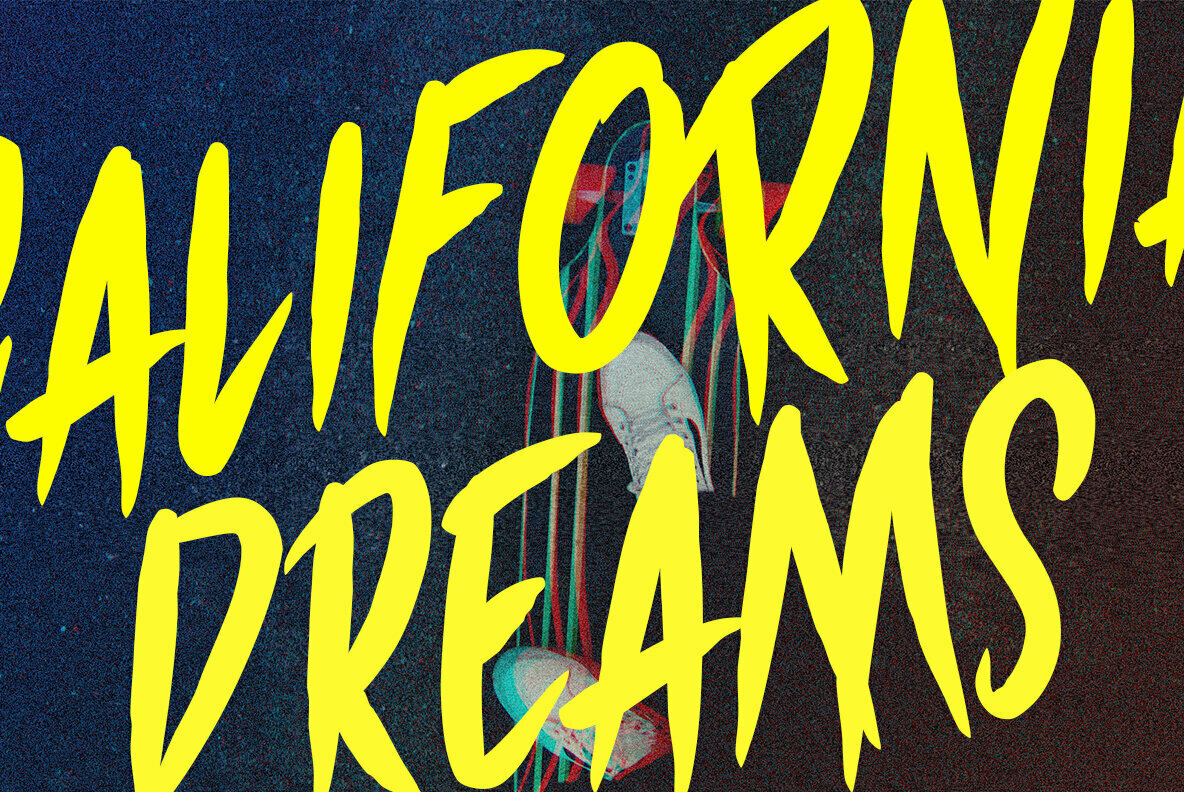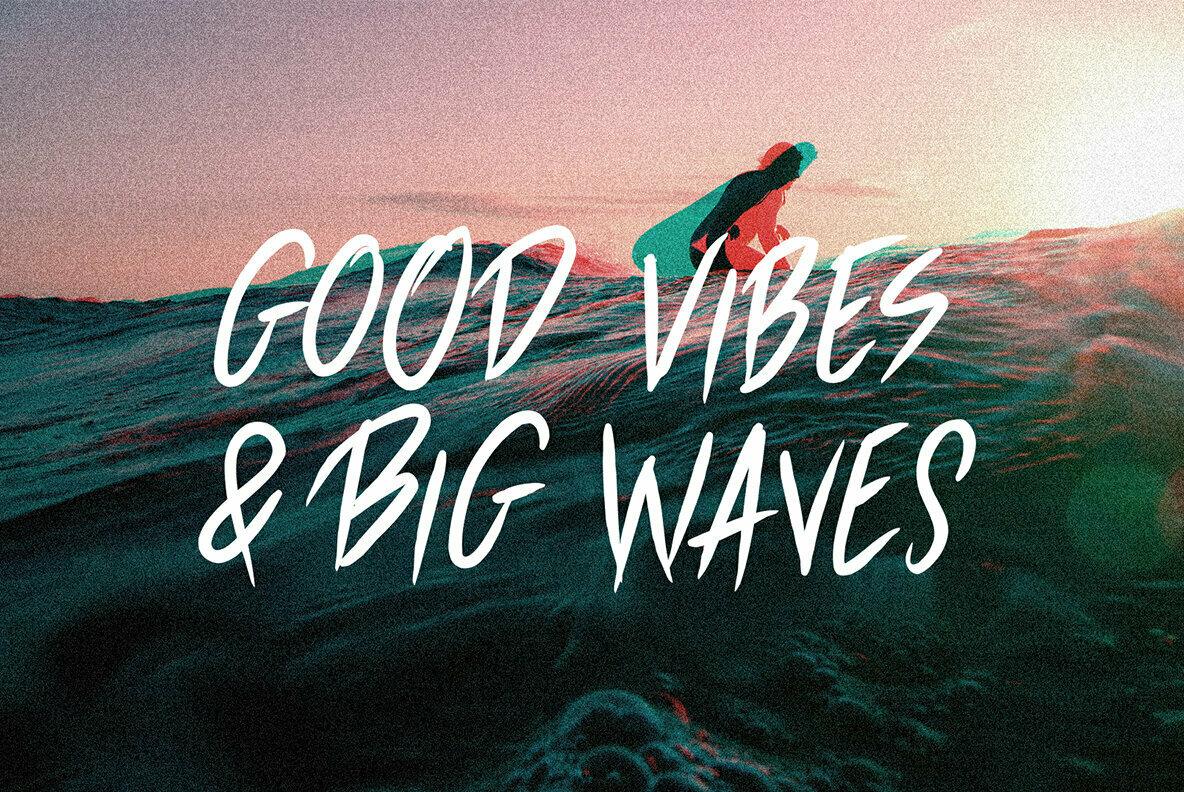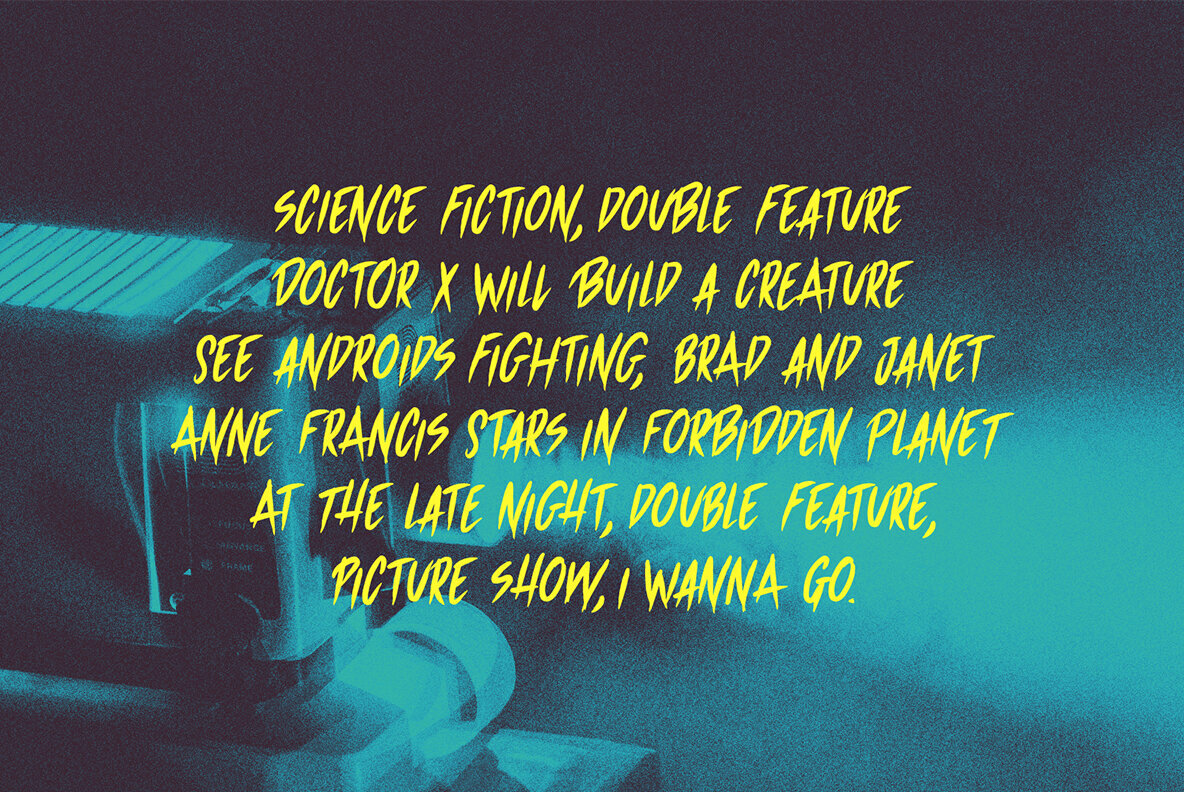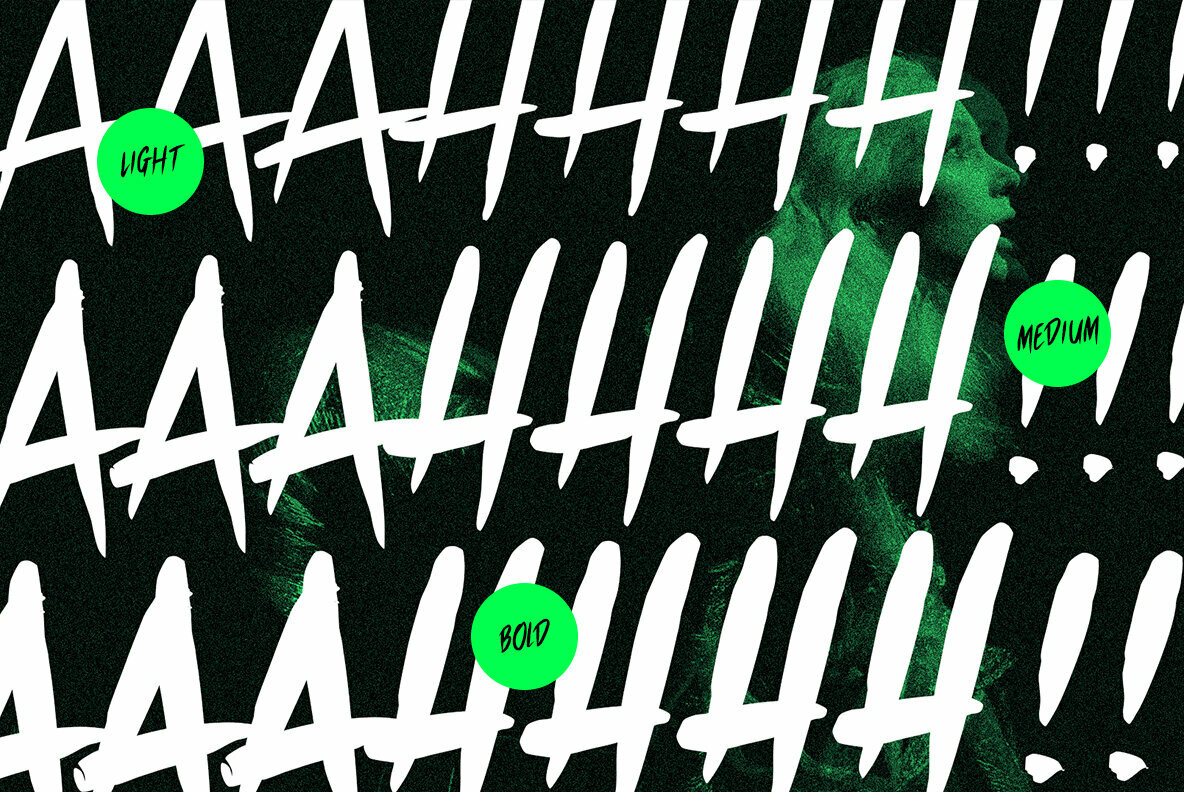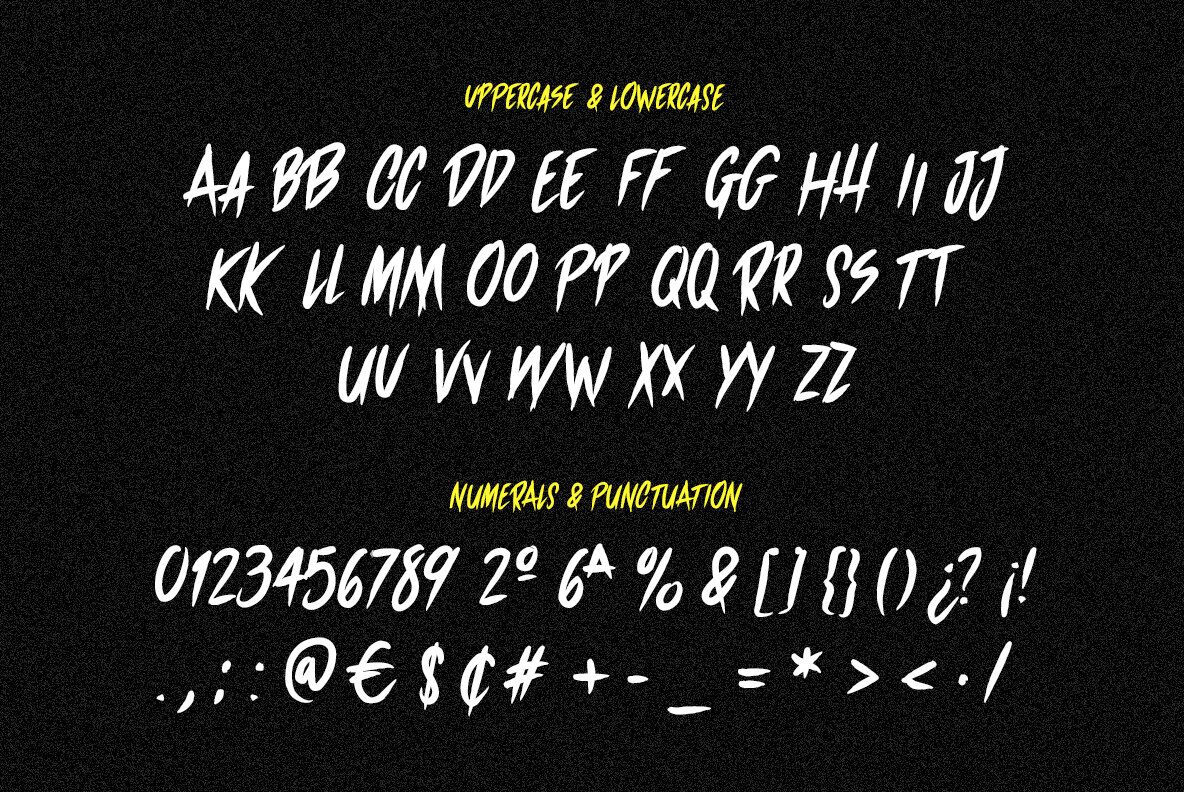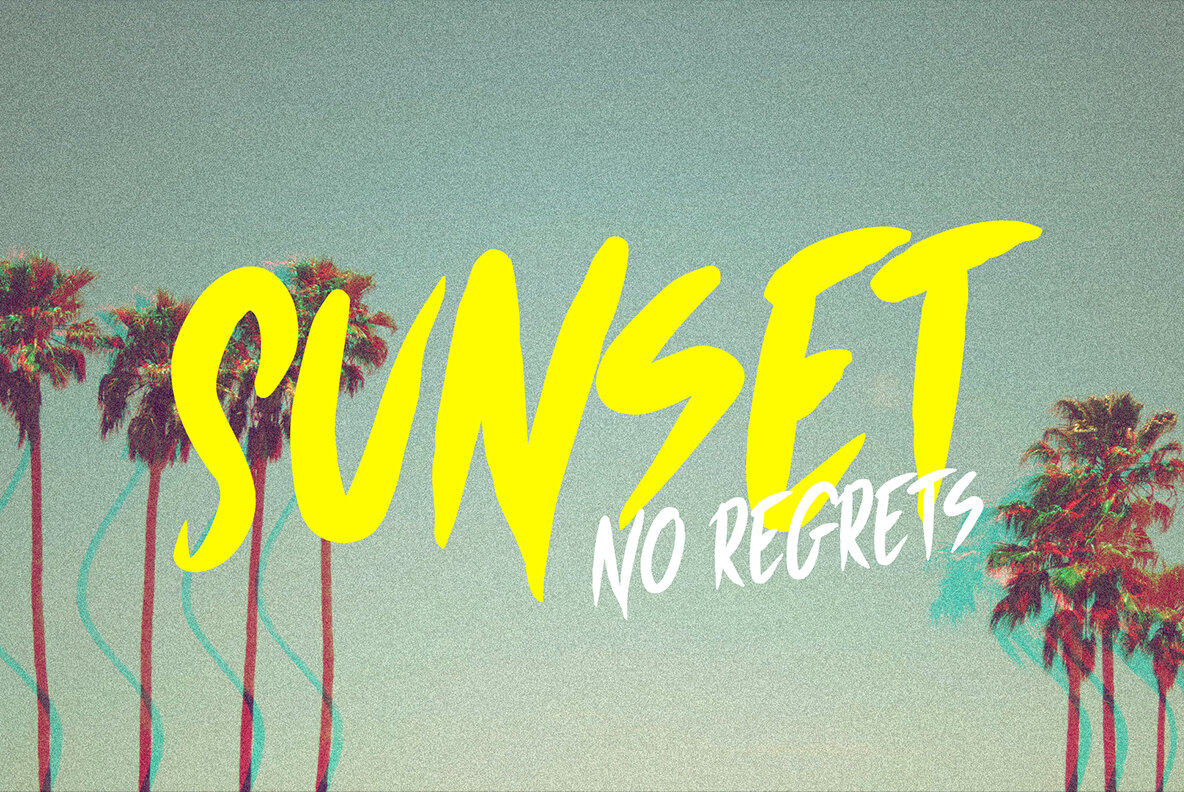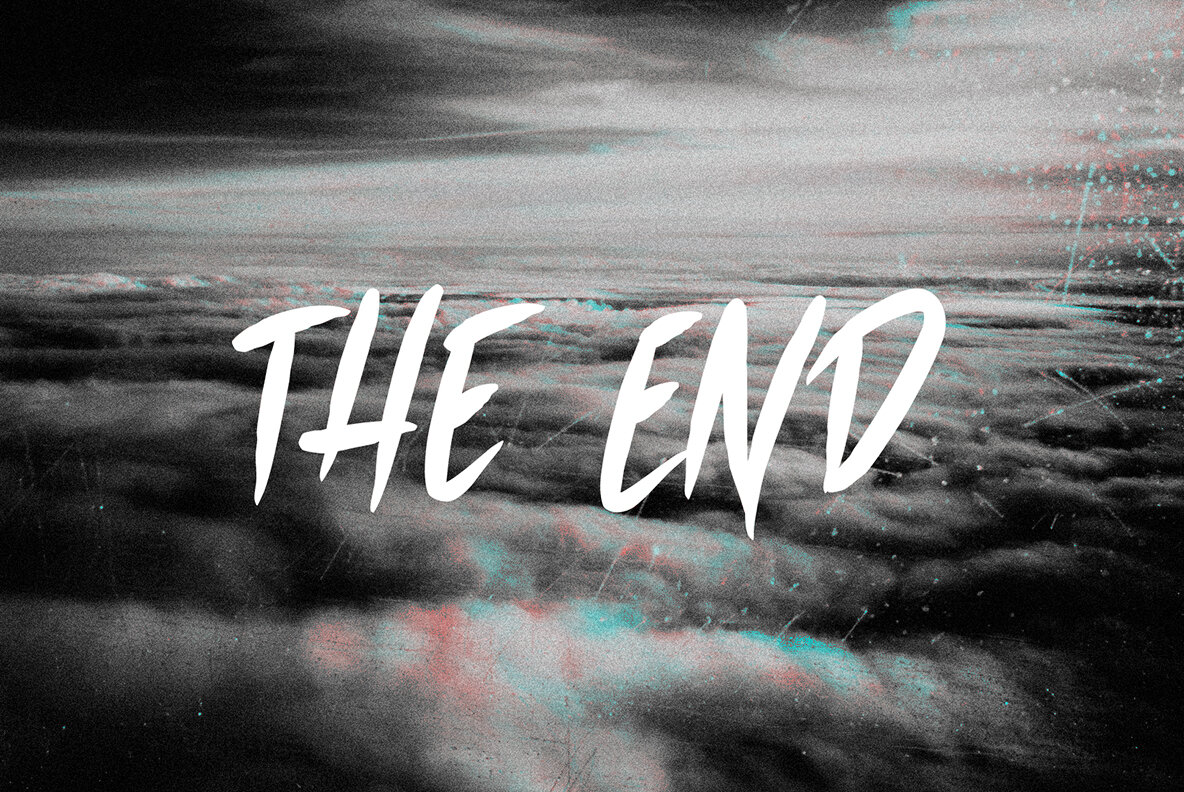
Serie B 1
Serie B, a handwritten font inspired in the B-movies, perfect for the hand drawn retro fonts lovers with a sci-fi and terror movie feel, but also with skate and surf vibes. You can use it for every project, personal or commercial. It looks great in big titles but also works perfectly in little paragraphs. This typeface comes in uppercase and use lowercase as uppercase alternates. Includes all symbols, numerals and a complete set of accent characters.